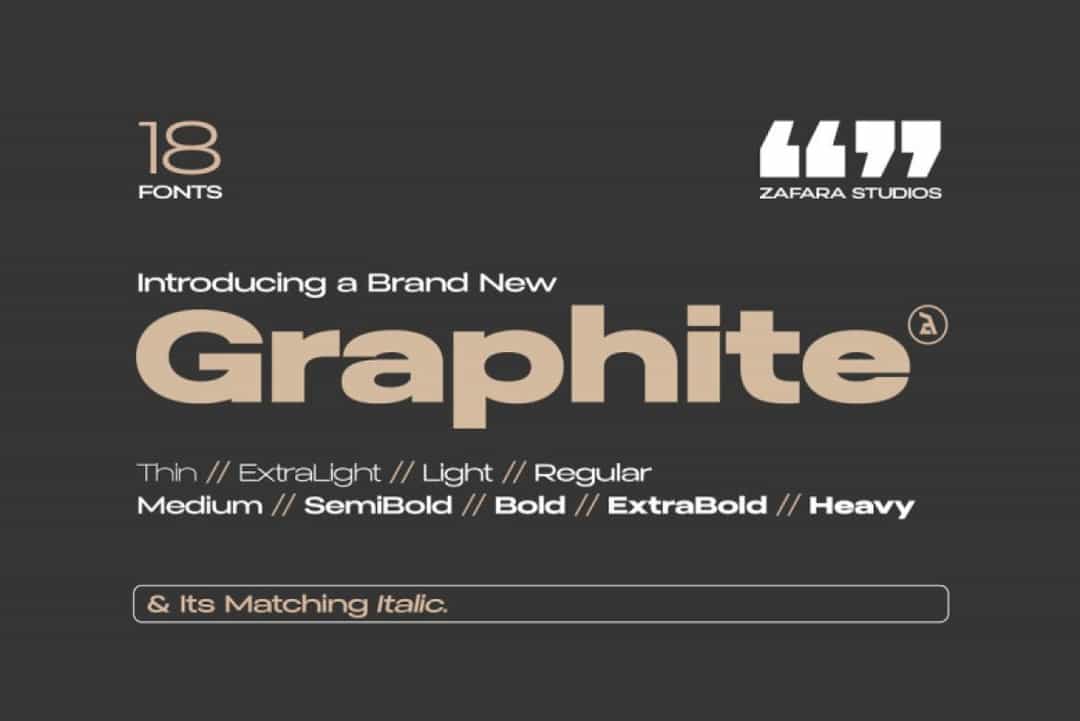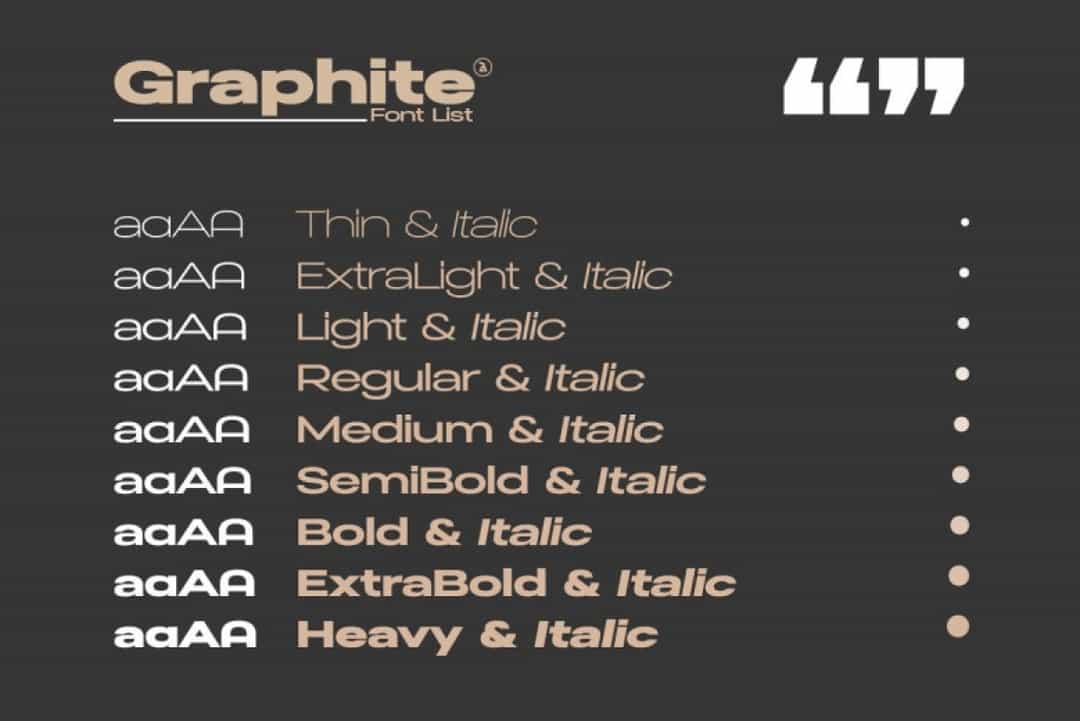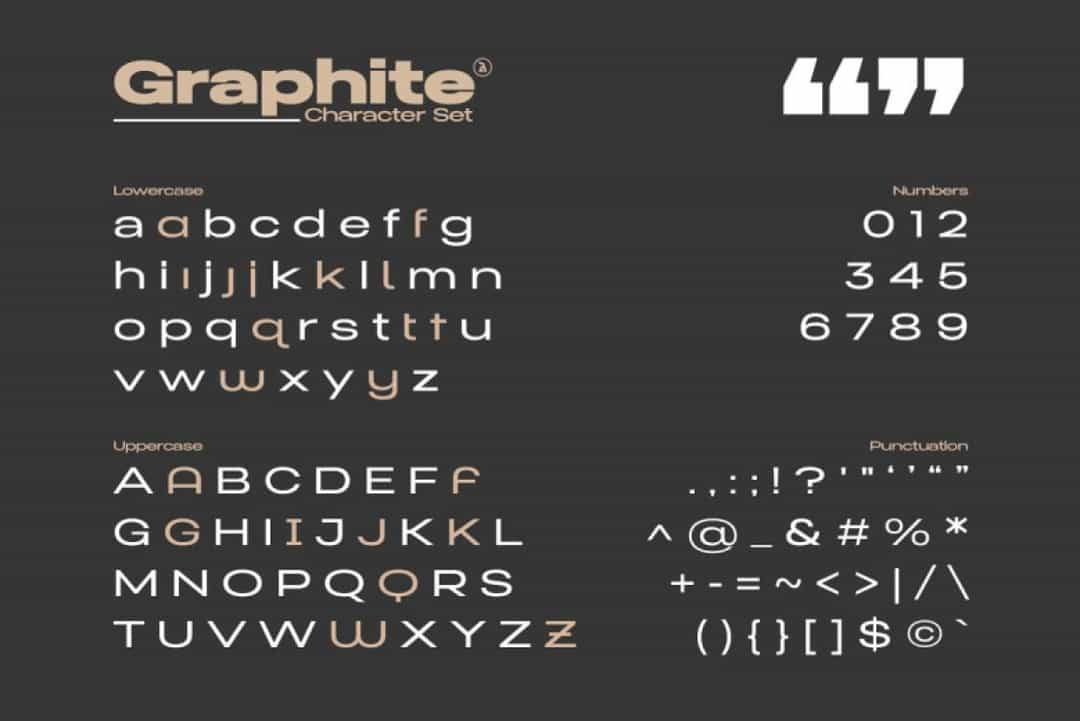
Graphite is an expansive sans-serif typeface designed to offer maximum contrast and visual clarity, creating an intimate yet expressive design that’s compact yet balanced – ideal for titles, headlines, logotypes and magazines that need to be visible and easy to read.